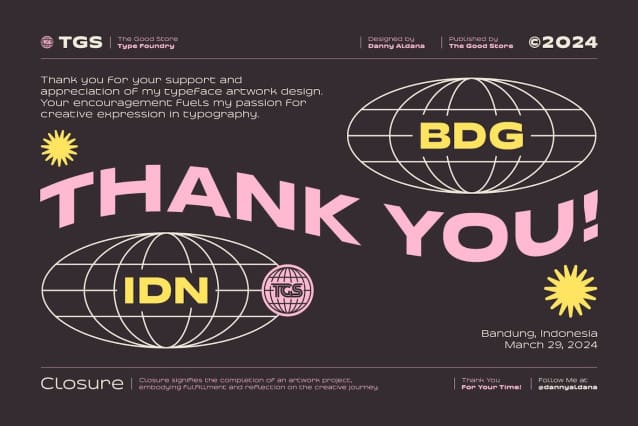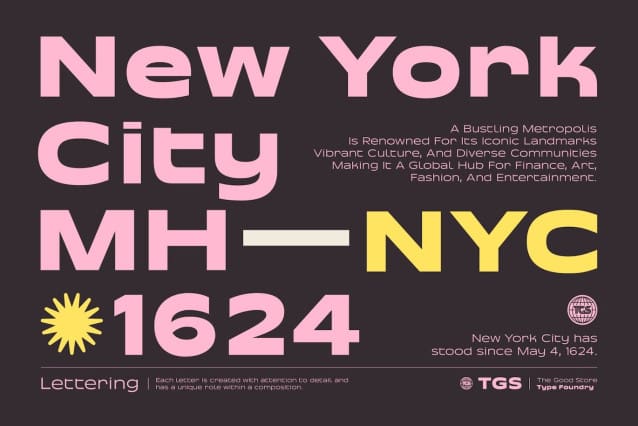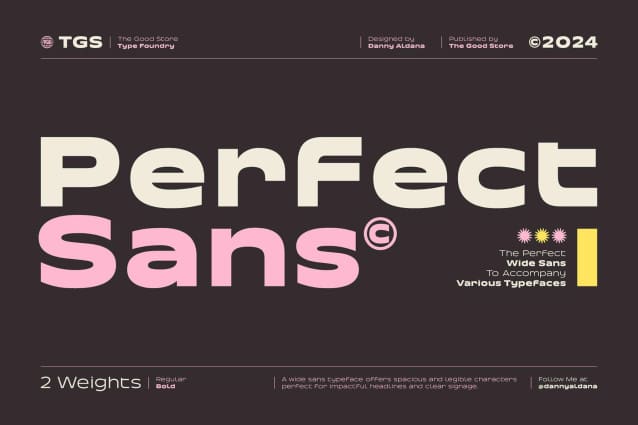
Perfect Sans Font
Perfect Sans Font is a wide sans typeface that offers spacious, legible characters, perfect for punchy headlines and clear signage. It’s the perfectsans-wide font to accompany various typefaces.